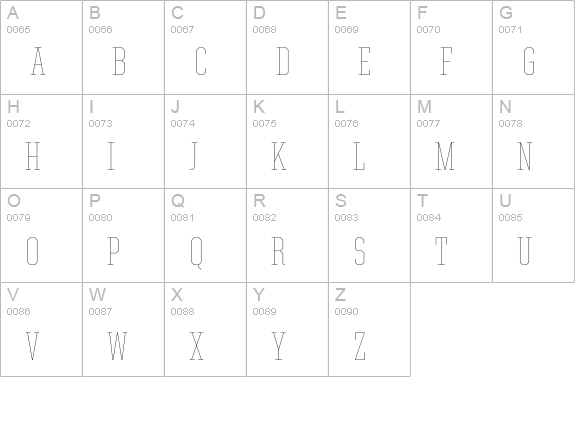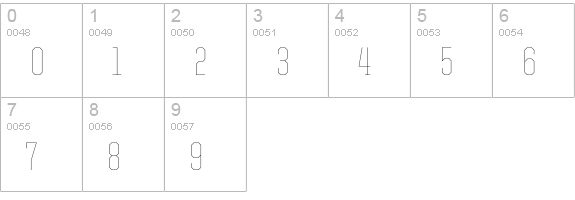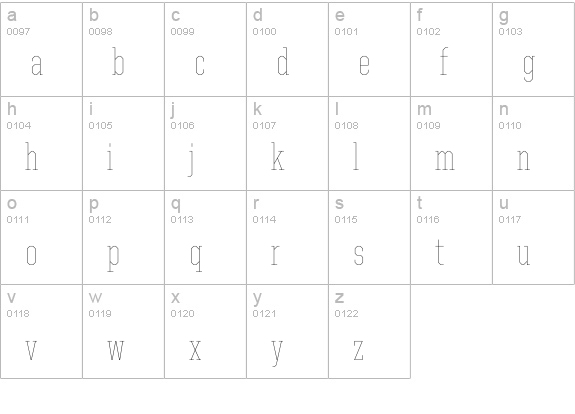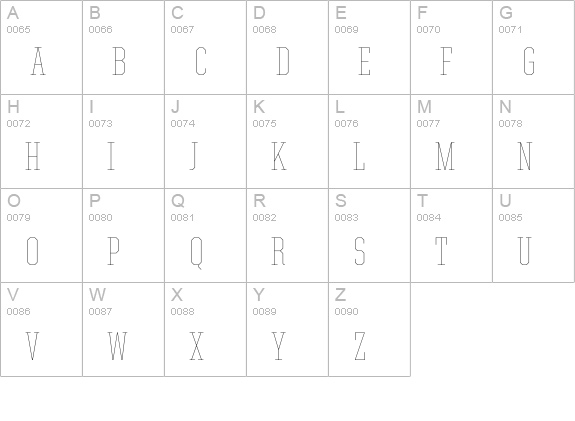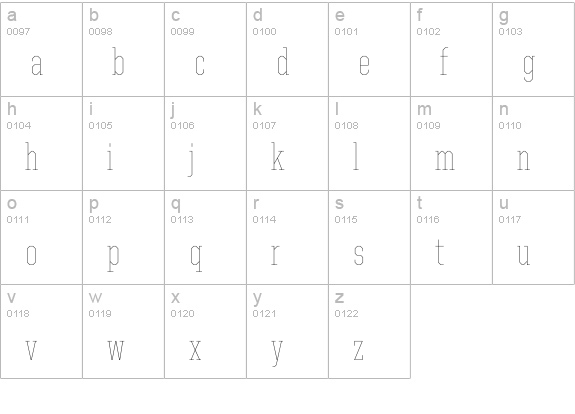
United Serif Cond Thin Font Details
United Serif Cond Thin is a delicate, low-contrast, condensed-width variant in the United typeface family \xE2\x80\x94 well suited to fashion editorial, minimal branding, and high-contrast display.
United Serif Cond Thin is a stunning font that effortlessly combines modernity with classic elegance. Its refined and slim letterforms exude sophistication, making it the perfect choice for projects that require a touch of finesse. With its sleek and delicate strokes, United Serif Cond Thin captures attention and commands a sense of authority. Its clean and precise lines create a sense of clarity and professionalism, making it an excellent option for corporate branding, editorial design, and high-end advertising. This font is freely available to download at FontsMarket.com, a reputable online platform for font enthusiasts and designers alike. By offering United Serif Cond Thin for free, FontsMarket.com ensures that designers have access to this remarkable font without any financial barriers. United Serif Cond Thin is versatile and adaptable, suitable for a wide range of design applications. Its legibility and readability make it an excellent choice for body text, while its refined details and delicate curves lend themselves beautifully to headlines and titles. Whether used in print or digital design, United Serif Cond Thin adds a touch of elegance and sophistication to any project. The character set of United Serif Cond Thin includes a comprehensive range of uppercase and lowercase letters, numerals, punctuation marks, and special characters, offering ample flexibility for creative and expressive typography. Its extensive language support further enhances its usability, allowing designers from all over the world to utilize this font for their projects. In conclusion, United Serif Cond Thin is a remarkable font that effortlessly combines contemporary style with timeless elegance. Its availability as a free download at FontsMarket.com ensures that designers can easily access and utilize this font in their creative endeavors. With its refined and slim letterforms, United Serif Cond Thin is the perfect choice for projects that require a touch of sophistication and finesse.